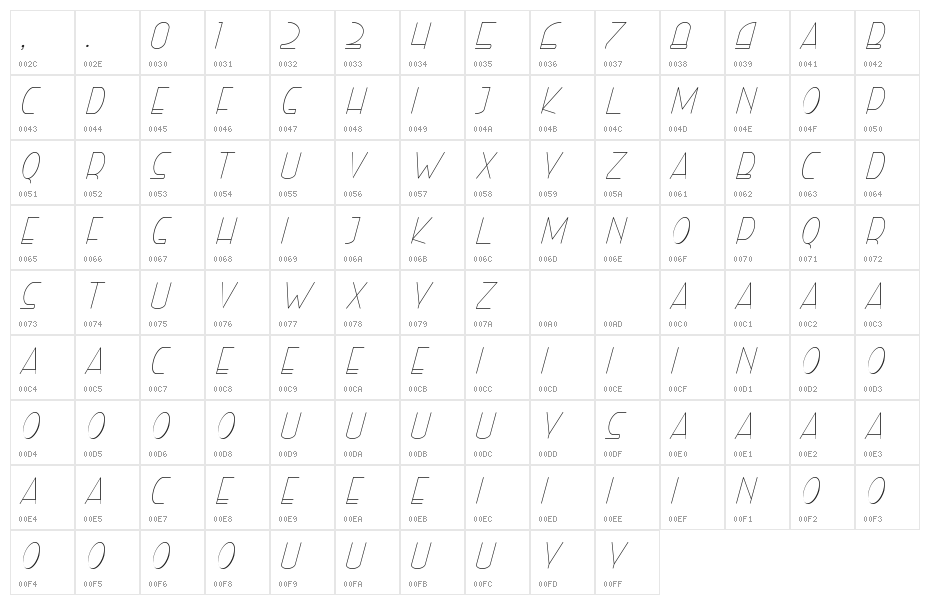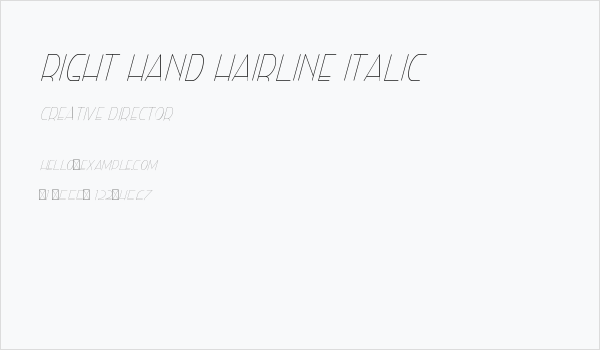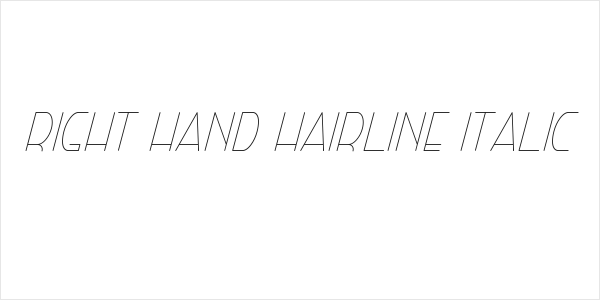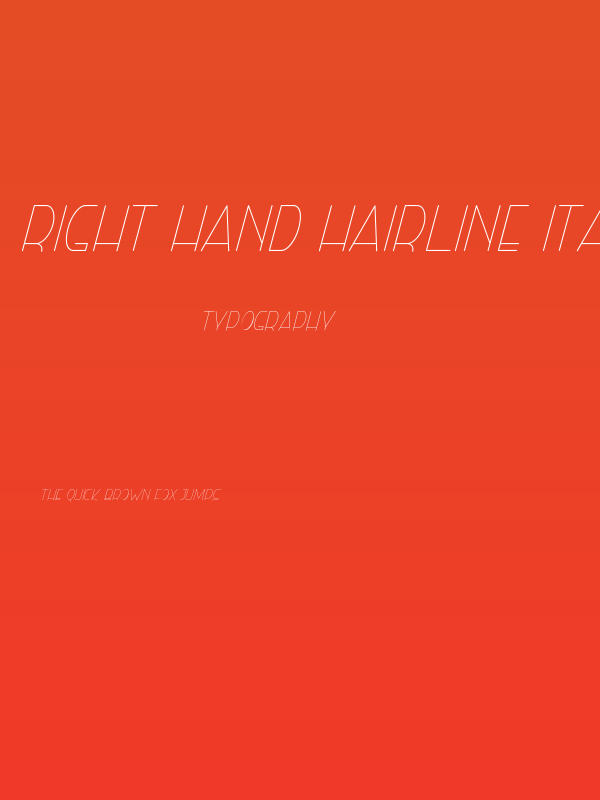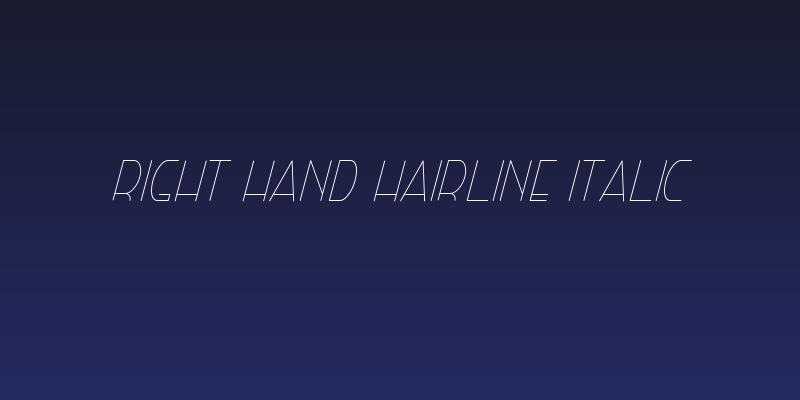
Right Hand Hairline Italic Font
Right Hand Hairline Italic Description
This font features a sleek, modern design with an italicized slant, giving it a dynamic and forward-moving appearance. The characters are constructed with thin, hairline strokes that convey elegance and precision. The uppercase and lowercase letters maintain a consistent style, with clean lines and minimal embellishments. The numerals are uniquely styled, complementing the overall aesthetic. Special characters are included, maintaining the same thin, elegant strokes. This font's design is ideal for projects that require a contemporary and sophisticated look.
| Proposed Projects | Ideal for fashion magazines, modern branding, luxury product packaging, and elegant invitations. |